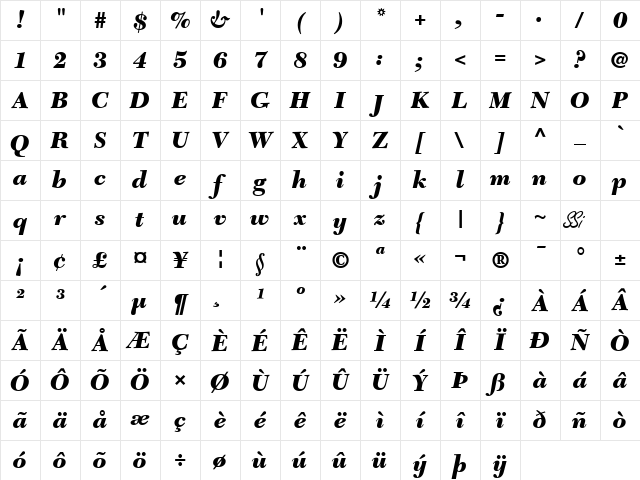
Tycoon Black SSi Black Italic
Complete Tycoon Black SSi Black Italic glyph index. Displaying only characters natively supported by Tycoon Black SSi Black Italic font.
Design Context for Tycoon Black SSi
Tycoon Black SSi is a composed and adaptable typeface that performs quietly and consistently across a wide range of design contexts. The slanted form adds forward momentum and visual energy.
Pro Tip: Use Tycoon Black SSi for emphasis, pull quotes, and subheadings where its slanted energy can add rhythm to the layout.